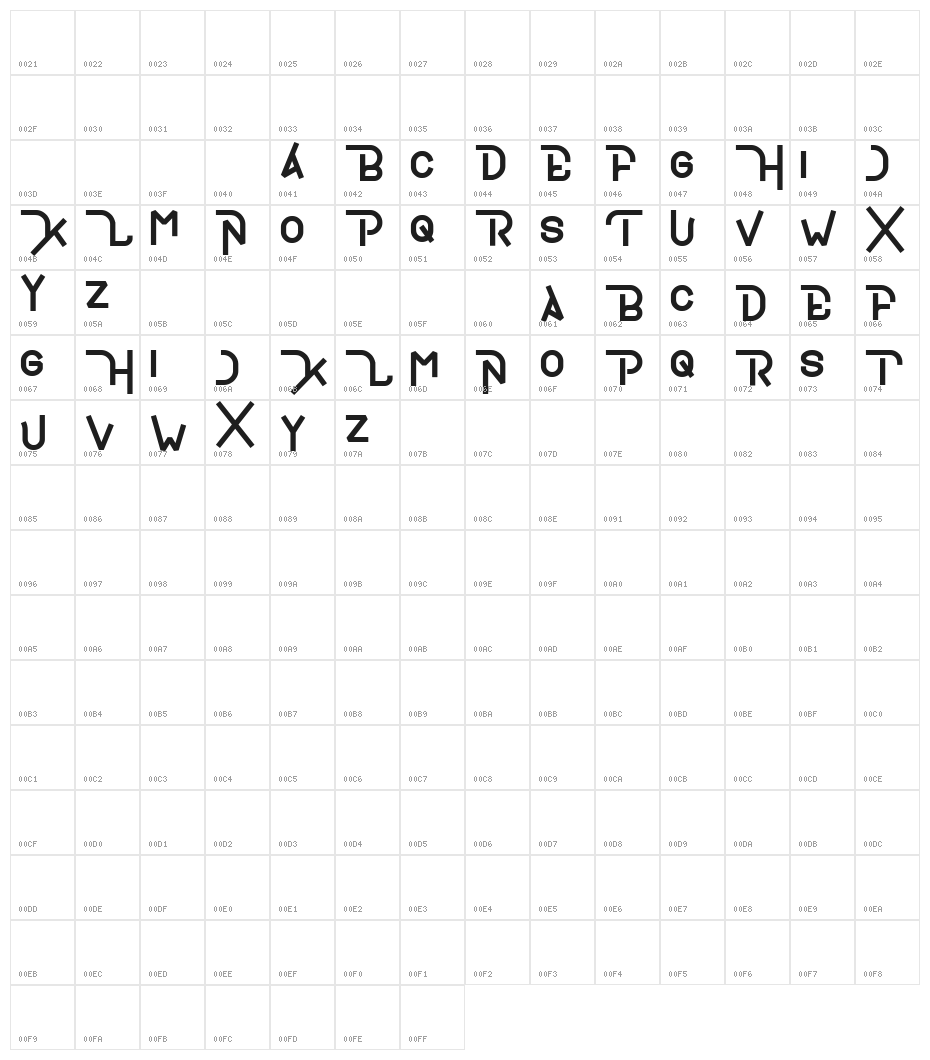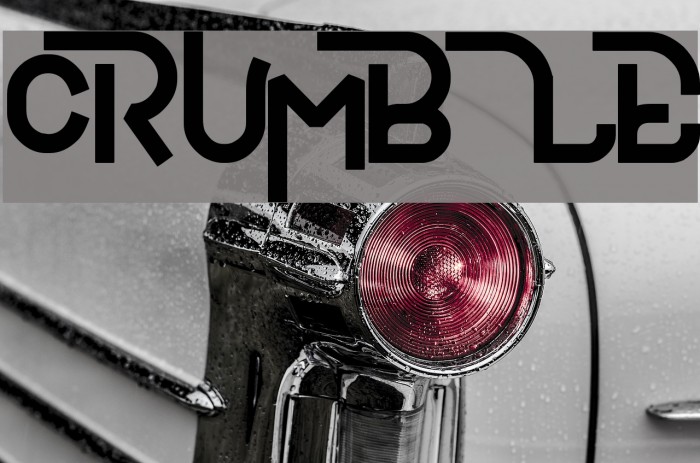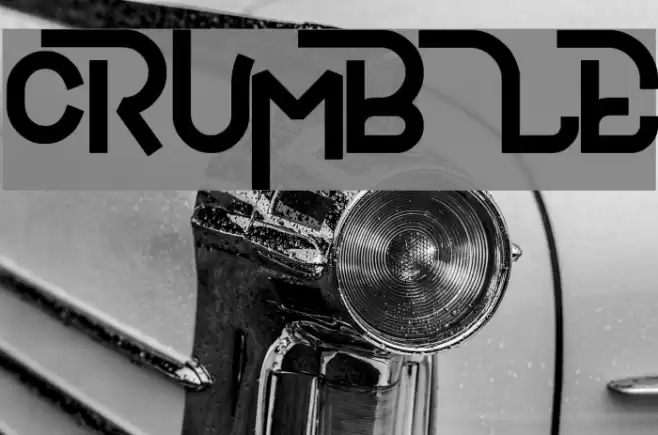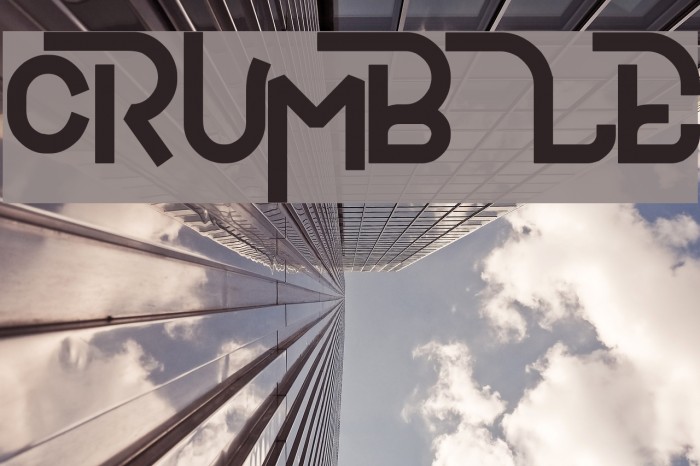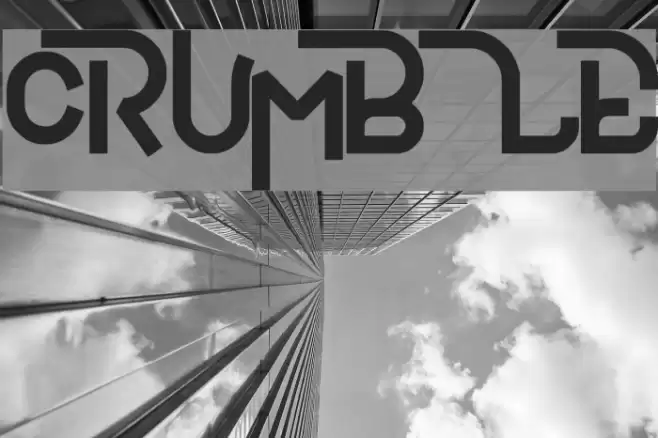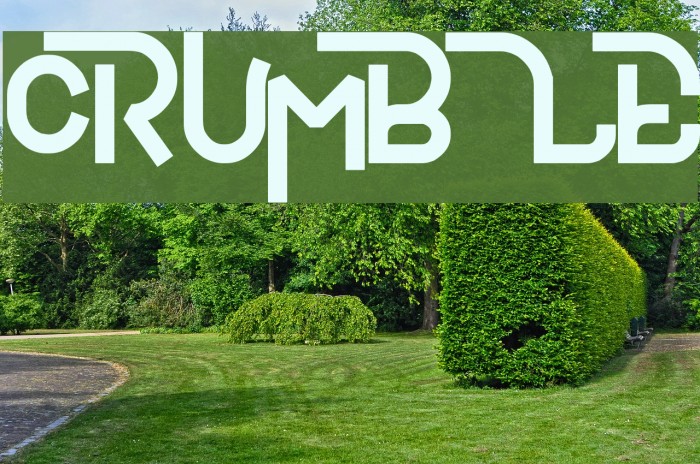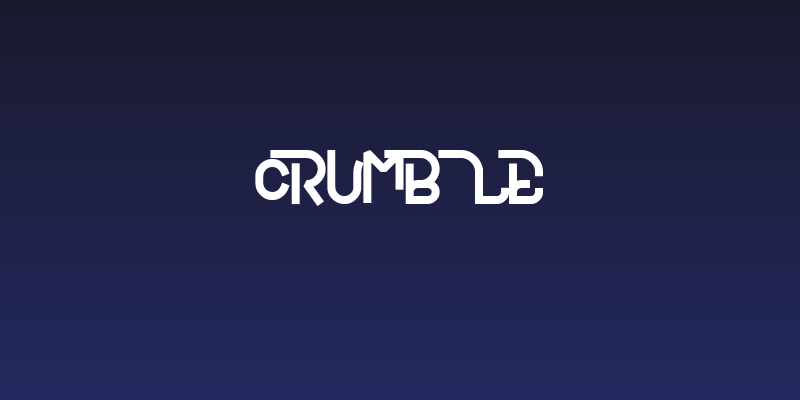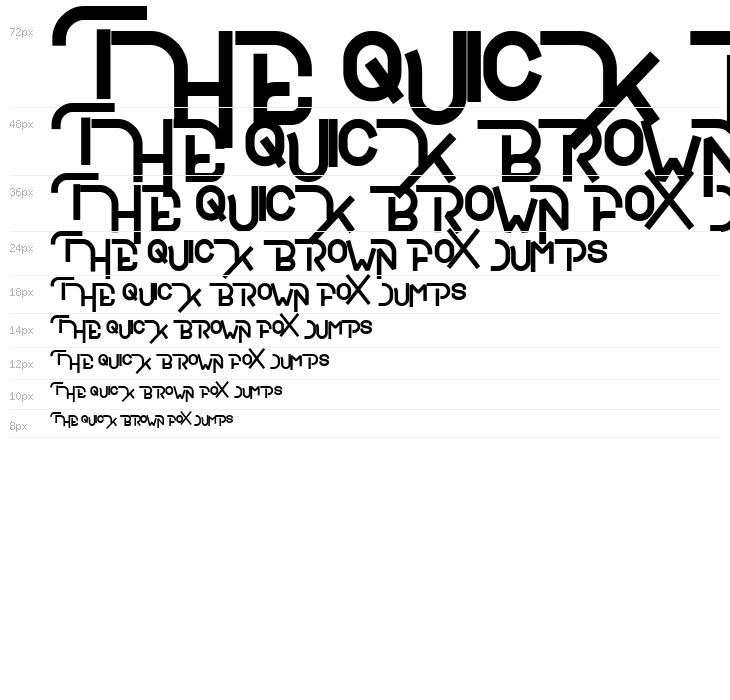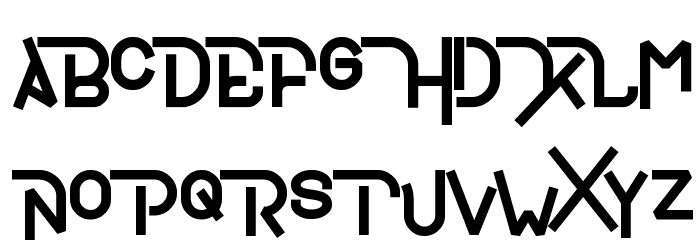
CRUmBLE Font
CRUmBLE Description
This font features a bold and geometric design with a futuristic flair. The characters are constructed with thick, uniform strokes that create a sense of stability and strength. The angular and sharp edges give it a modern and edgy appearance, while the consistent stroke width throughout the characters maintains a cohesive look. The uppercase letters are particularly striking, with unique shapes that make them stand out. The lowercase letters follow the same design principles, ensuring readability while maintaining the font's distinctive style. This font is ideal for projects that require a bold statement or a modern aesthetic.
| Proposed Projects | Ideal for branding, posters, headlines, and any project needing a modern, bold statement. |